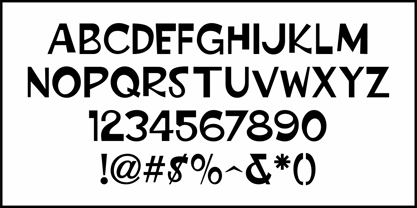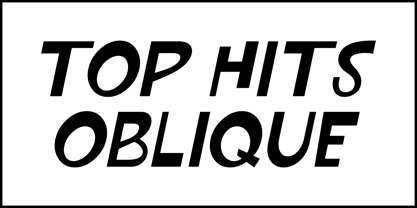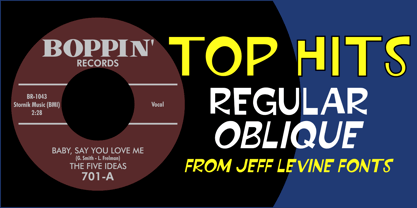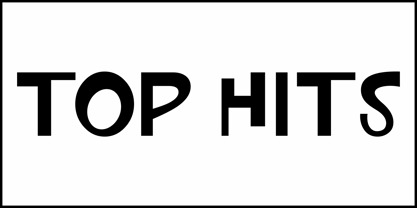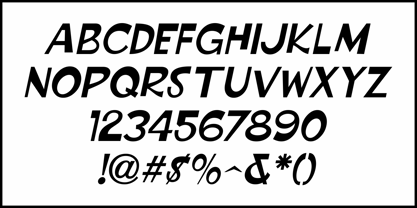
Top Hits JNL
by Jeff Levine
In the December 4, 1961 issue of Broadcasting magazine was an ad for radio station WRVA in Richmond, Virginia. The free form, casual sans serif hand lettering featured in that ad inspired Top Hits JNL, which is available in both regular and oblique versions.